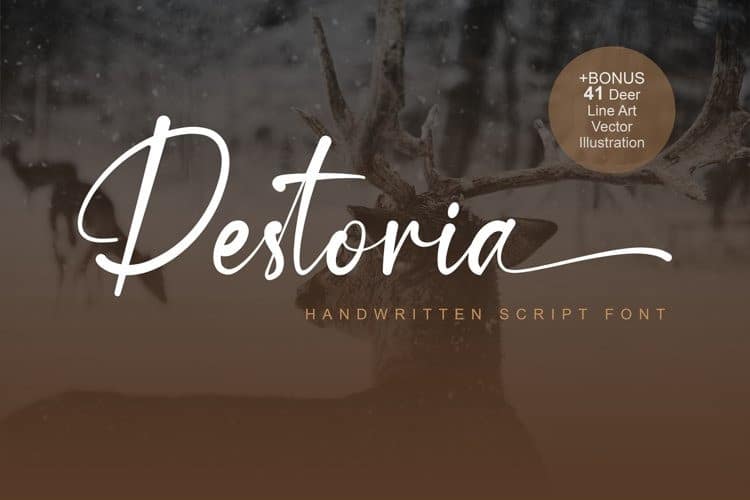
Destoria Calligraphy Font
Thanks for checking out Destoria Calligraphy Font – A typeface inspired by natural hand written. Made from font designer named lemonthe. This font has many stylistic alternates, ligatures, swashes so you can play around with them using opentype features and creates lettering with natural touch. It’s the perfect font for wedding invitations, stationery, photography, social media posts, product packaging, greeting cards, and much more!